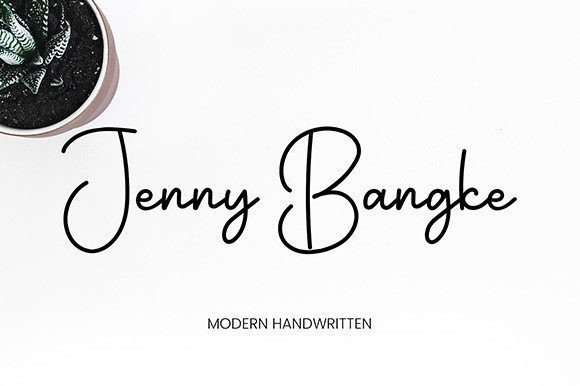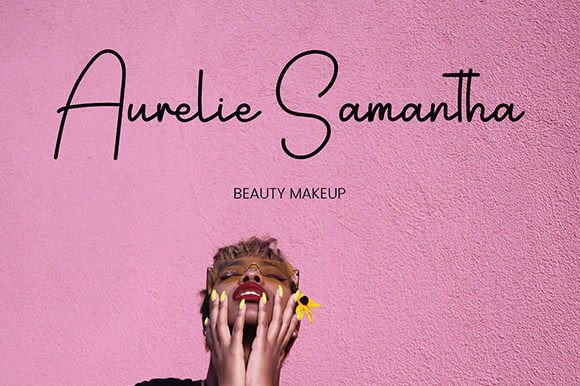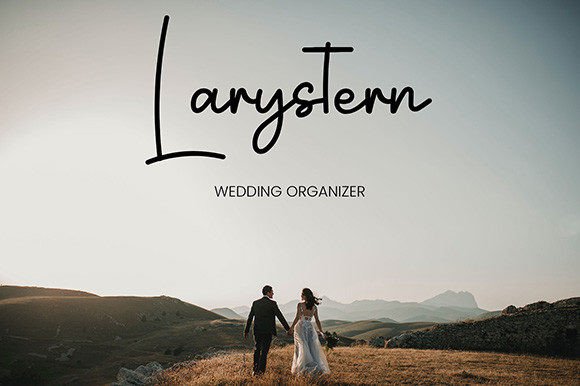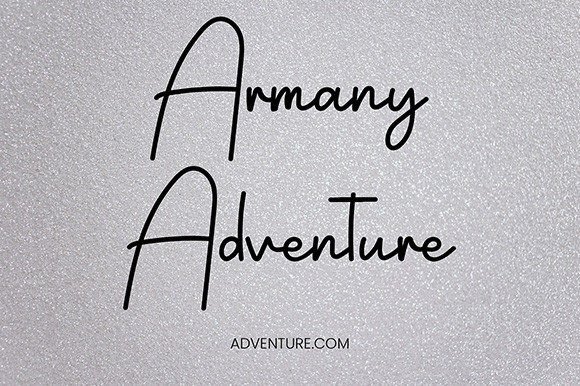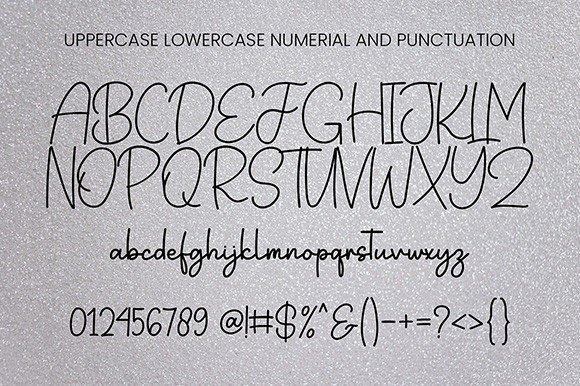
The Quest for the Perfect Font: Discovering Better Home
I’ll never forget the time I was working on a branding project for a client’s boutique fashion label. I had spent hours agonizing over the logo design, but something just wasn’t clicking. The issue? The font. It was too bland, too generic, and just didn’t capture the essence of the brand. I scoured font websites, searched through design blogs, and even asked fellow designers for recommendations, but nothing seemed quite right. That was until I stumbled upon the Better Home font.
A Game-Changing Font for Creative Projects
The Better Home font is a stylish and versatile typeface that’s perfect for a wide range of creative projects. From quotes and logos to blog headers, posters, ribbons, fashion and clothing designs, letters, invitations, and stationery, this font is sure to become a go-to in your design arsenal.
An Honest Review of Better Home
- ✨ Elegant and sophisticated design that’s perfect for high-end branding projects
- 💡 Extensive character set, including OpenType features and stylistic alternates
- 🎨 Beautifully crafted to add a touch of elegance to any design
While the Better Home font is an excellent choice for many projects, there are a few things to keep in mind:
- ⚠️ Some users may find the font a bit too ornate for very casual or playful designs
- 🤔 Limited availability of certain characters or glyphs in certain software or platforms
The Story Behind Better Home
The Better Home font was designed with the goal of creating a beautiful and elegant typeface that would add a touch of sophistication to any design. Inspired by classic serif fonts and modern design trends, the Better Home font is the result of careful craftsmanship and attention to detail.
Q: What type of projects is the Better Home font best suited for?
A: The Better Home font is perfect for a wide range of creative projects, including quotes, logos, blog headers, posters, ribbons, fashion and clothing designs, letters, invitations, and stationery.
Q: Is the Better Home font available in different weights or styles?
A: Yes, the Better Home font comes in a range of weights and styles, allowing you to add depth and visual interest to your designs.